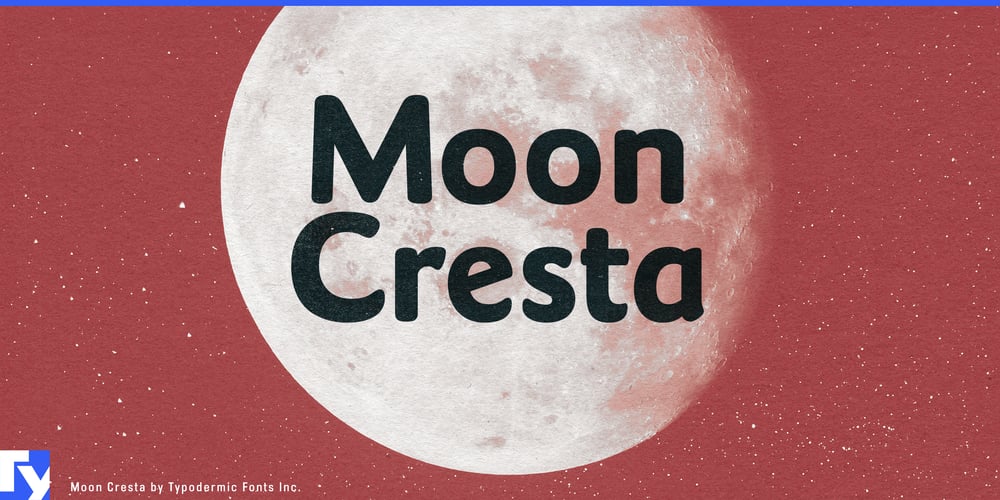
Moon Cresta Font Family was designed by Ray Larabie and published by Typodermic. Moon Cresta contains 4 styles and family package options. Moon Cresta beckons designers with its soft, celestial charm—a typeface that gracefully bridges the gap between timeless elegance and modern minimalism. Drawing inspiration from the revered Goudy Sans, Moon Cresta reimagines classic forms with a contemporary twist, creating a typeface that’s as versatile as it is captivating.At first glance, Moon Cresta’s smooth curves and effortless flow evoke a sense of warmth and approachability. Its Regular weight commands attention without overpowering, perfect for headlines that need to make a statement while maintaining a friendly demeanor. Responding to the typeface’s growing popularity, a Light weight was introduced, offering designers a more delicate touch for body text or subtle accents. This thoughtful expansion allows for greater design flexibility, enabling you to craft hierarchies and create contrast within your layouts. But Moon Cresta’s allure doesn’t end with its weights. Delve deeper, and you’ll discover a constellation of typographic delights. Discretionary f-ligatures and custom ligatures for KA and RA await, ready to add a touch of sophistication to your designs. These subtle refinements, accessible through your application’s Discretionary Ligatures feature, elevate Moon Cresta from merely charming to truly distinctive. Moon Cresta’s versatility extends beyond its visual appeal. With support for an extensive array of Latin-based European writing systems, this typeface ensures your message resonates across cultures and languages. From the fjords of Norway to the plains of Hungary, Moon Cresta speaks fluently, making it an ideal choice for global brands and multilingual publications alike.Whether you’re designing a sleek website, crafting inviting packaging, or developing a friendly brand identity, Moon Cresta offers the perfect blend of softness and clarity. Its organic forms invite readers in, while its modern sensibilities keep designs fresh and current. Ready to infuse your project with a touch of lunar magic? Let Moon Cresta illuminate your designs, bringing a gentle radiance to every word it touches.